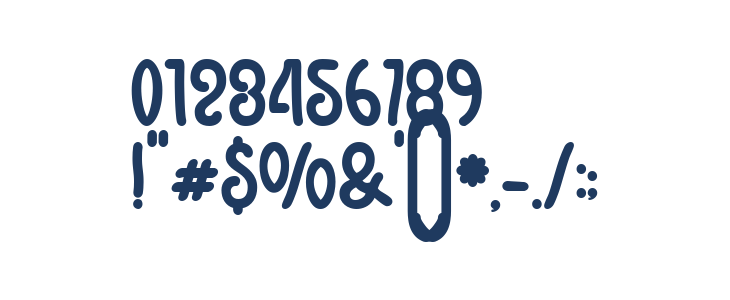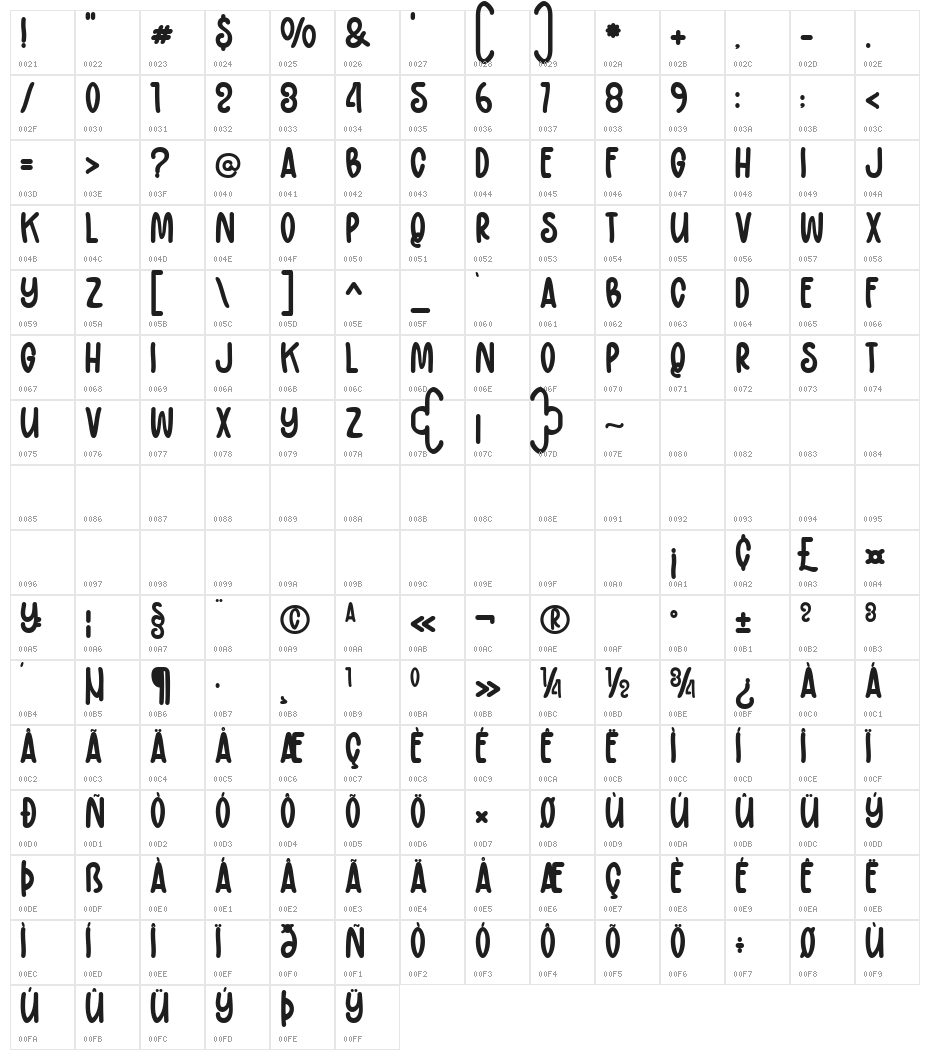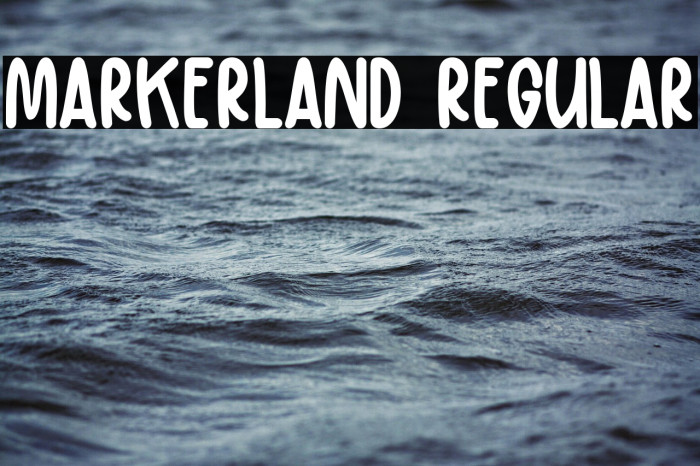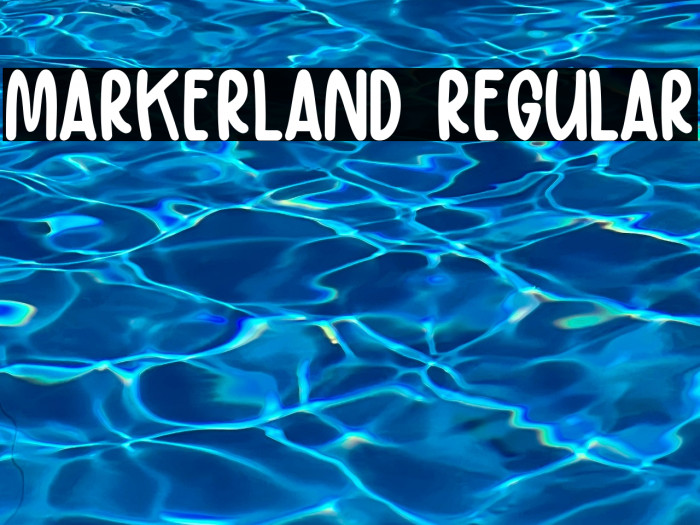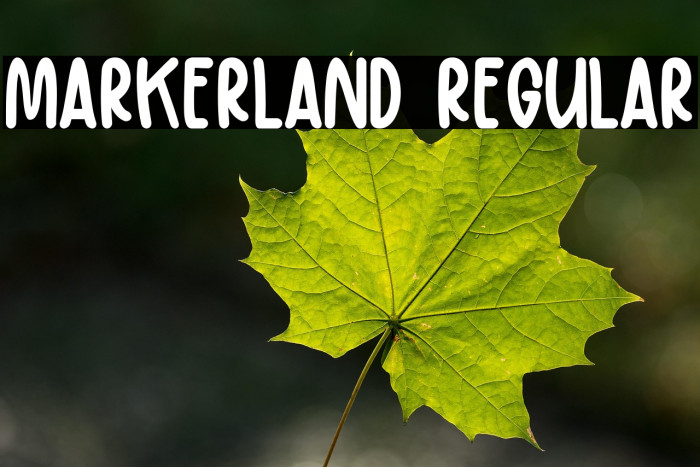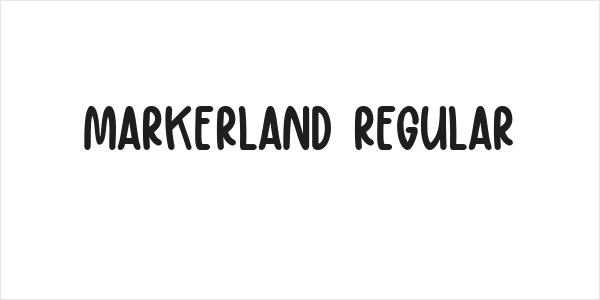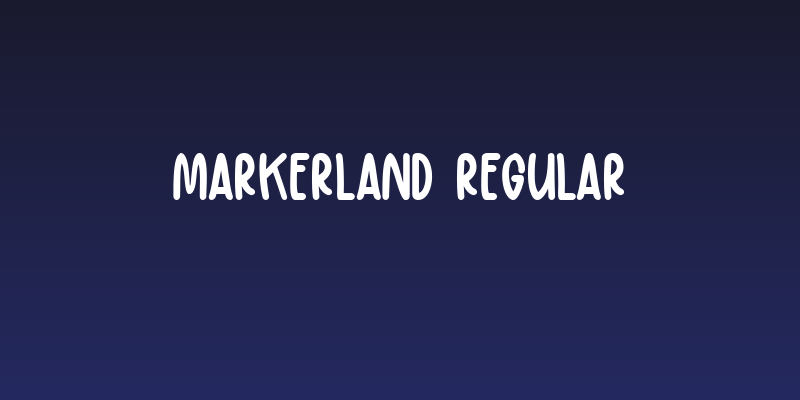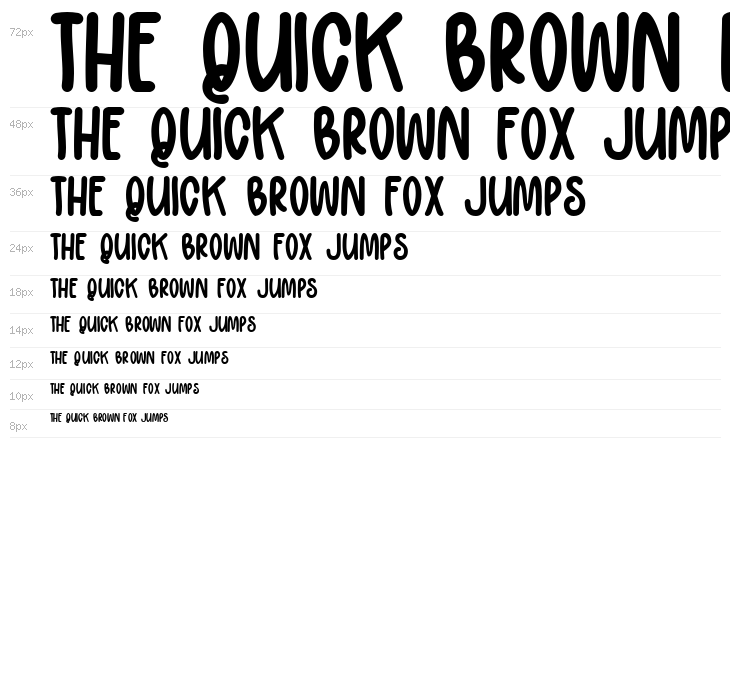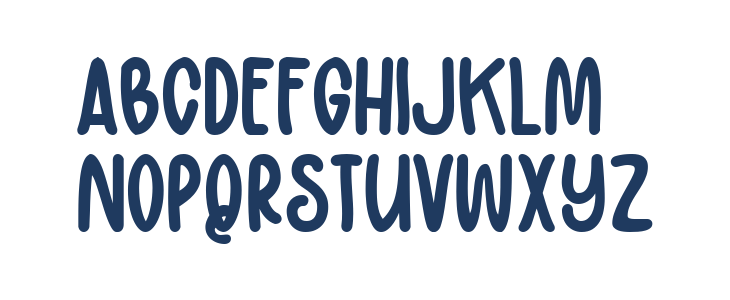
Markerland Regular Font
Markerland Regular Description
This playful and bold font features rounded, hand-drawn characters that exude a casual and friendly vibe. The letters are thick and consistent, with a slight variation in stroke width that adds a touch of dynamism. The overall appearance is reminiscent of marker writing, making it ideal for projects that require a personal and approachable feel. The numbers and special characters maintain the same playful style, ensuring a cohesive look across all text elements.
| Proposed Projects | Ideal for children's books, playful branding, casual invitations, and creative posters. |